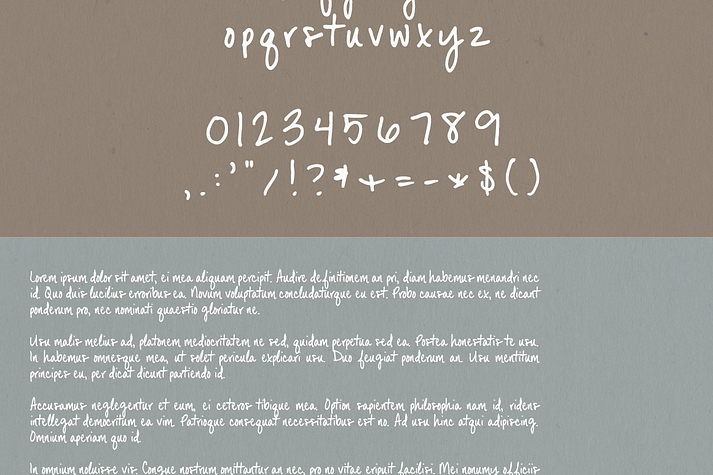
Dana Point
Dana Point is a font family published by Jen Wagner Co.
This simple hand written font is perfect for personalizing thank you cards, letters, and email signatures with something that looks real!
Created using a felt tip pen
• uppercase & lowercase letters
• numbers & basic punctuation